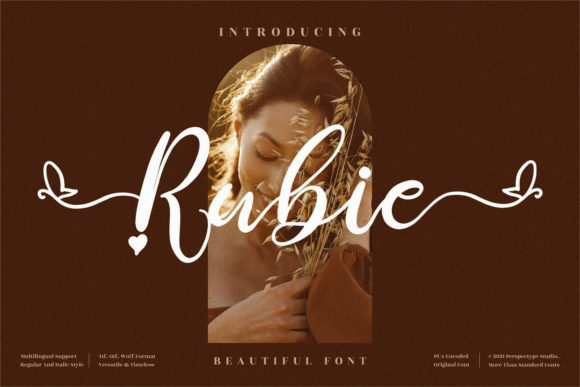
Introducing the Rubie Font, a graceful and refined script font that exudes elegance and charm. Its delicate strokes and intricate details bring a touch of sophistication to any design project. Crafted with meticulous care by Perspectype, Rubie is not just a font; it's an artistic masterpiece that will elevate your creations to new heights.
With Rubie, you'll have the power to transform ordinary words into captivating works of art. Its flowing curves and subtle flourishes add a touch of whimsy and romance to any project, leaving your audience spellbound. Whether you're designing invitations, logos, social media graphics, or website headings, Rubie will effortlessly elevate your designs and make them shine.
Unleash your creativity and let Rubie's beauty captivate your audience. Its versatility extends beyond aesthetics; Rubie is PUA encoded for seamless access to all glyphs and swashes. Experiment with different letter combinations and ligatures to create unique and eye-catching designs that are sure to leave a lasting impression.